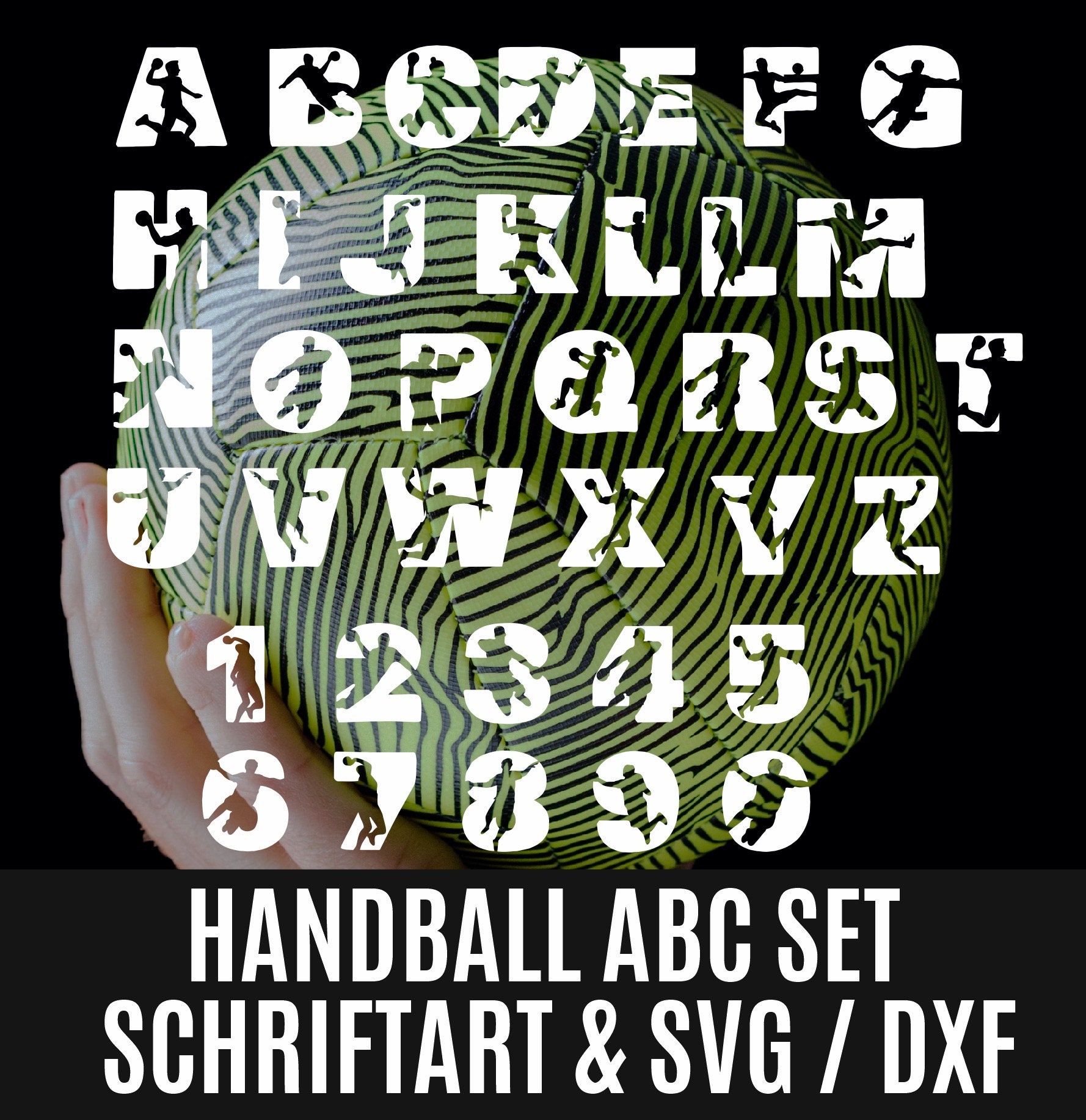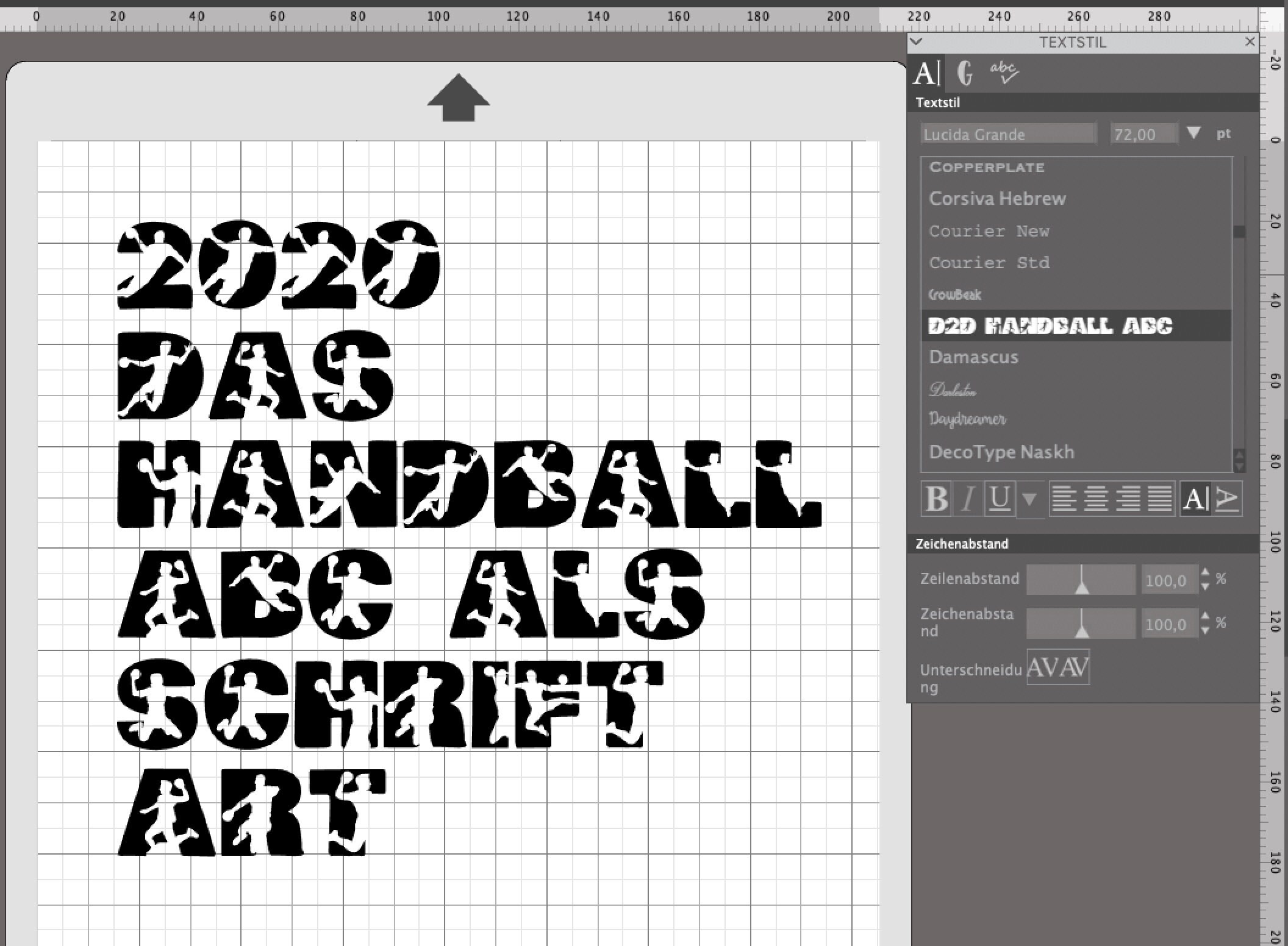
NOT all characters are available and there are only uppercase letters. On the small letters there are alternative capital letters for some characters.
Included: A-Z and 0-9